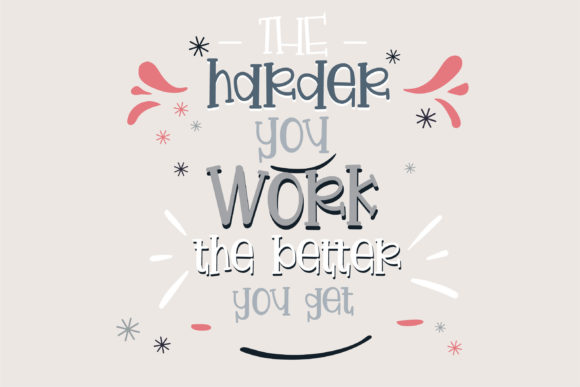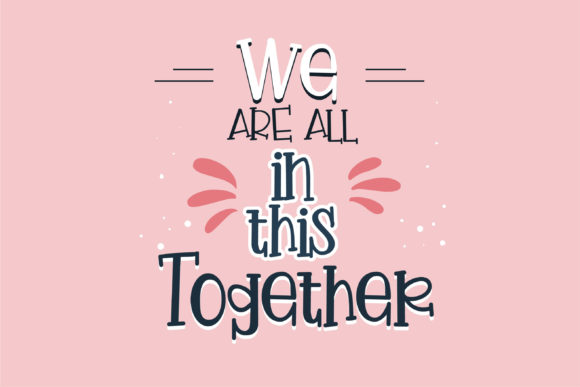
Gibraltar Font
db-ku.com - Script & Handwritten -- Gibraltar is a whimsical serif font that has a few ligatures to keep the font fresh. It has beautiful and well balanced characters and as a result, it matches a wide pool of designs. Add it to your most creative ideas and notice how it makes them come alive!